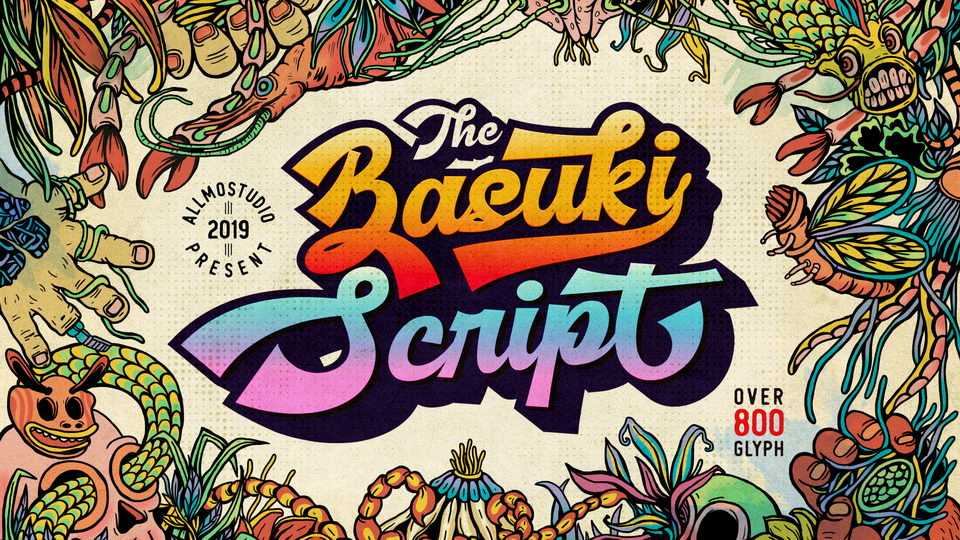
Download Basuki Script font, a fancy vintage typeface inspired by dinamic culture, sign and badges design. Basuki Script works well on both vintage and modern design.
Designer: Allmo Studio